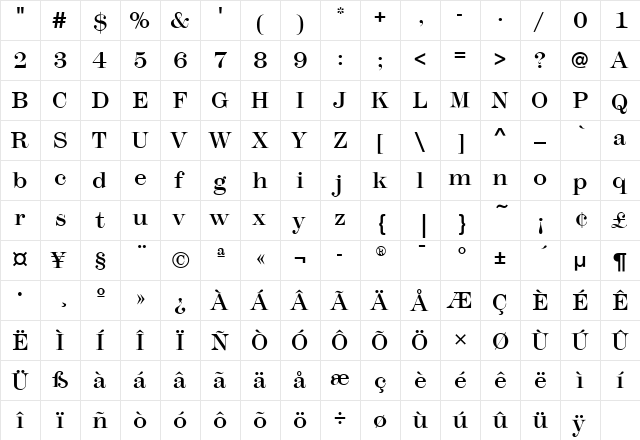
ModernTwoSixtnMdITC Medium
Design Context for ModernTwoSixtnMdITC Typeface
ModernTwoSixtnMdITC offers clean, dependable letterforms without strong stylistic allegiance, making it a practical choice for designers who need flexibility.